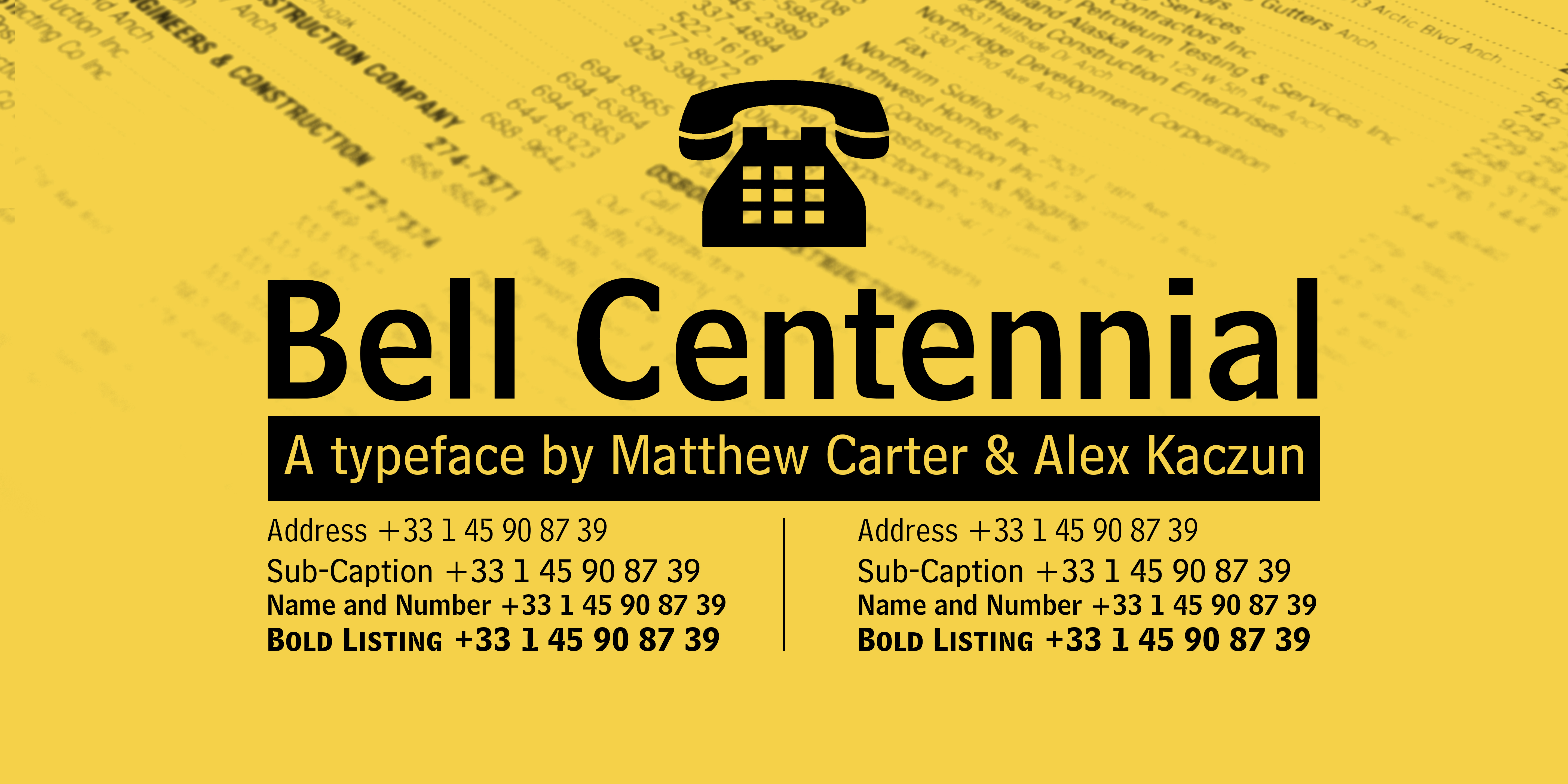
Bell Centennial Font is ideal for telephone directories, newspaper classified ads, technical documentation, reference manuals, dense data publications, small-print legal documents, pharmaceutical inserts, insurance forms, financial reports, and high-volume information printing applications.
What makes Bell Centennial Font exciting is its revolutionary engineering that solved the challenge of maintaining perfect legibility in extremely small sizes and challenging printing conditions. This groundbreaking typeface was specifically designed for Bell Telephone's centennial phone directories, featuring innovative ink trap technology that prevents letter degradation during high-speed printing processes. The font's scientific precision ensures crystal-clear readability even when printed at microscopic sizes on newsprint.
Bell Centennial Font family includes multiple weights optimized for different printing conditions, from Address to Bold Listing styles. Each variant features strategically placed ink traps and carefully calibrated character spacing designed to compensate for ink spread and paper absorption in mass production printing environments.
Publishing professionals rely on Bell Centennial Font Free Download for projects requiring maximum information density without sacrificing readability. This exceptional typeface represents a milestone in functional typography, combining Matthew Carter's legendary design expertise with cutting-edge printing technology research. The scientifically engineered letterforms ensure optimal performance in challenging production environments, making it essential for publishers, telecommunications companies, and any organization requiring reliable small-print typography that maintains professional standards under extreme conditions.